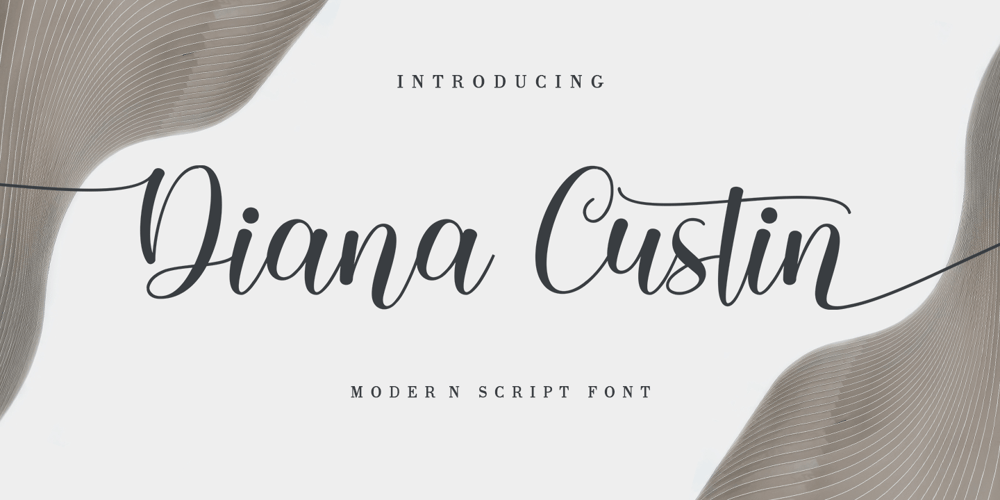
Diana Custin Font Family was designed by Andri Kurniawan and published by Struggle Studio. Diana Custin contains 1 styles and family package options. Diana Custin in beautiful handwritten style font. Equipped with 350+ glyphs. Diana Custin is perfect for branding projects, home appliance design, product packaging, use in business cards, invitation cards, etc.Just as a stylish text overlay onto a background image or anything else that needs a touch of elegance.